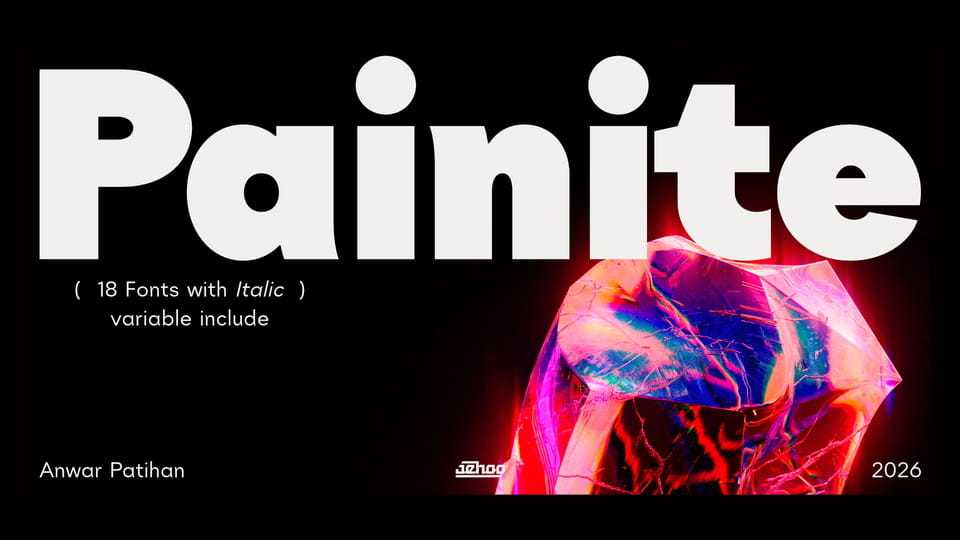
Download Painite font, a contemporary sans-serif typeface inspired by the geometric spirit of Futura, reinterpreted through a modern and refined lens. Built on precise geometric structures, Painite embodies a clean design aesthetic—clear, rational, and visually balanced.